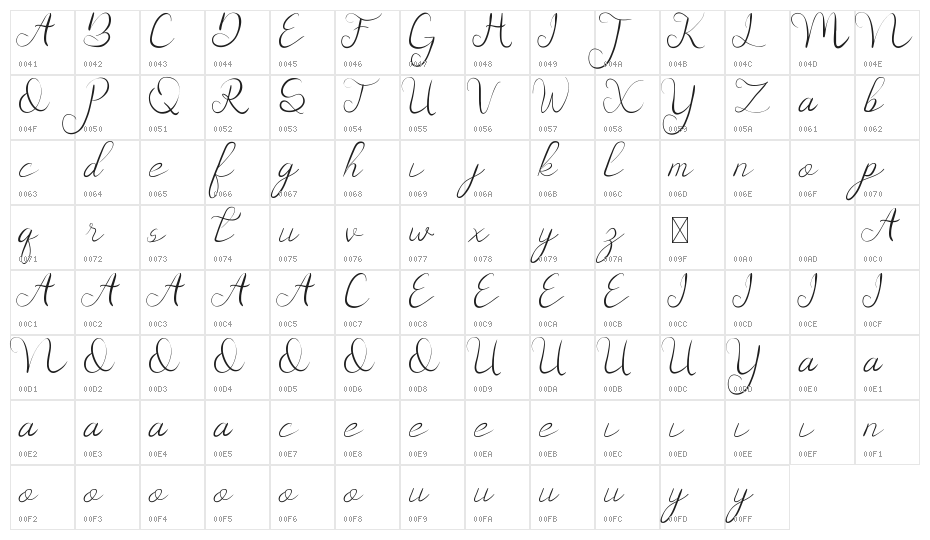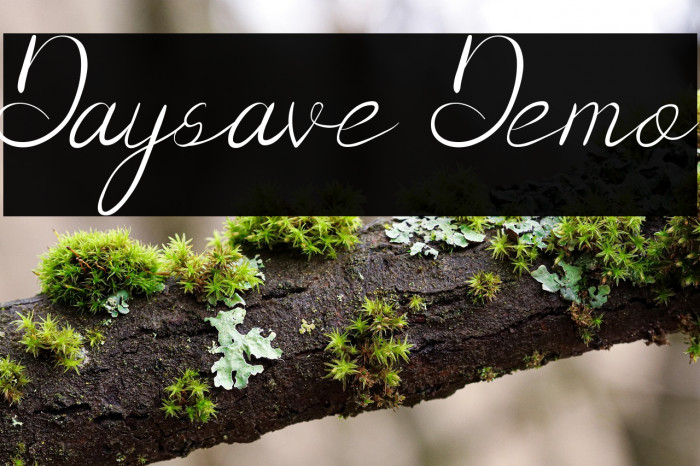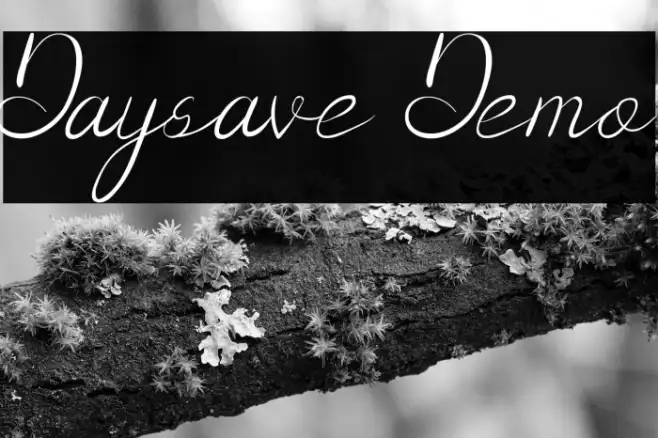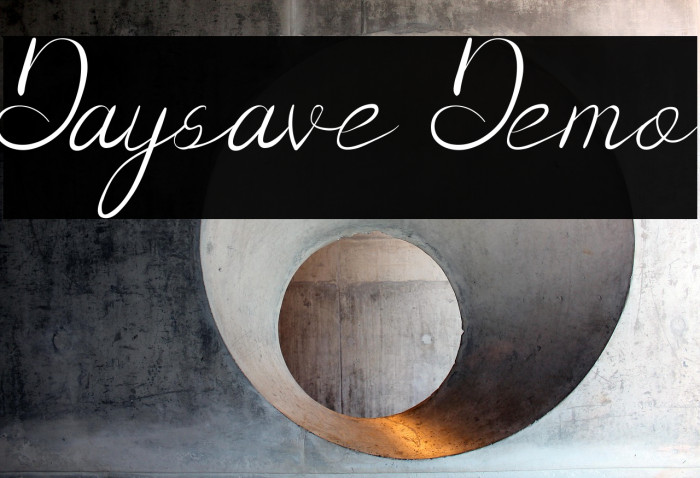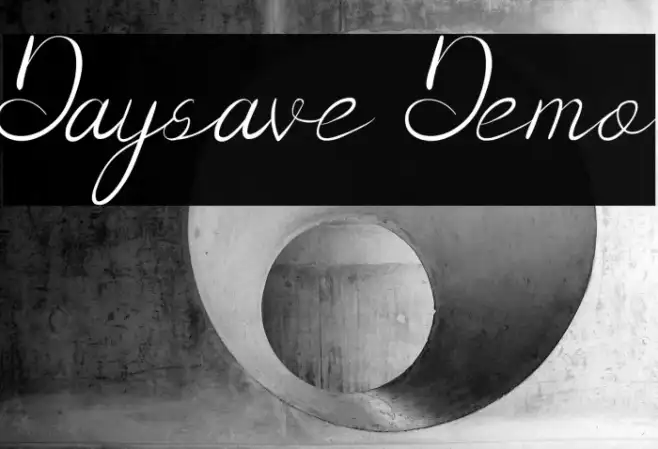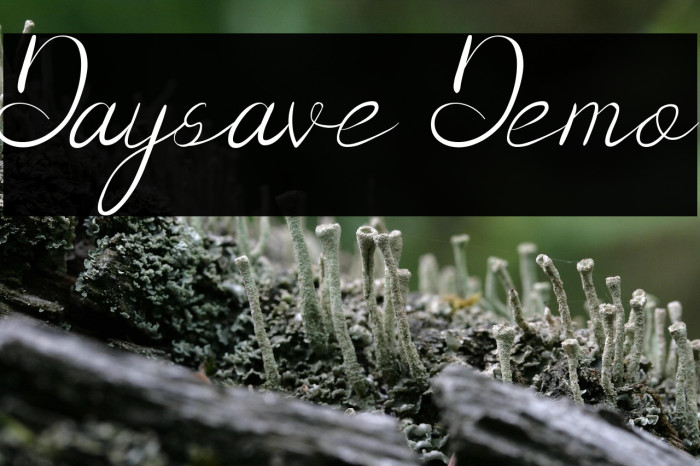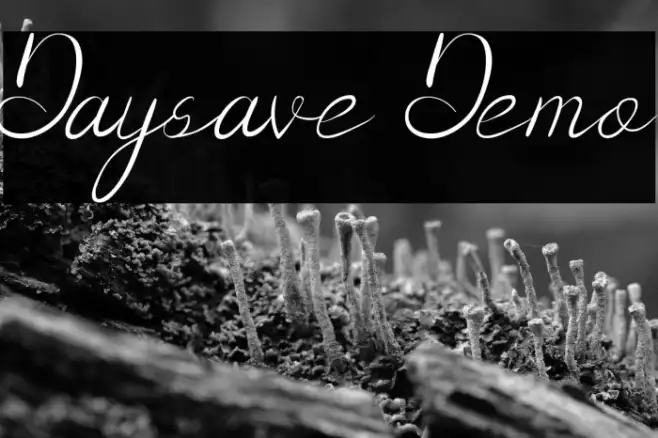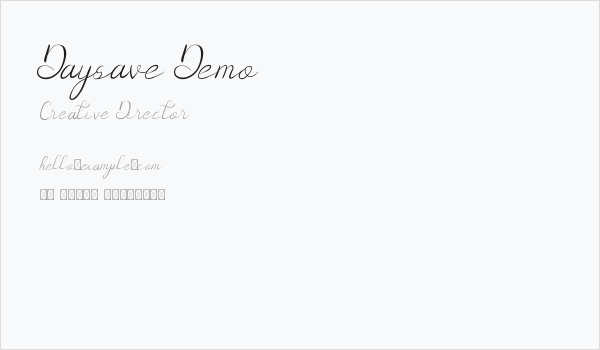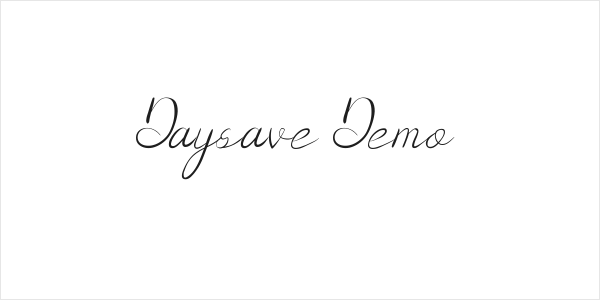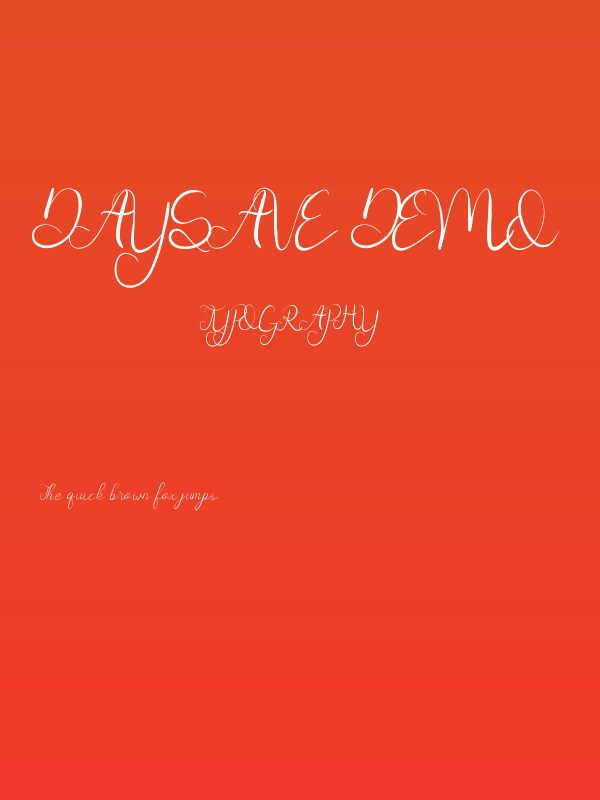
Daysave Demo Font
Daysave Demo Description
This elegant script font features a flowing, cursive style with intricate loops and flourishes. The characters are connected, creating a seamless and sophisticated appearance. The uppercase letters are grand and ornate, while the lowercase letters maintain a graceful continuity. The font exudes a sense of elegance and refinement, making it ideal for formal invitations, branding, and decorative purposes. The strokes vary in thickness, adding a dynamic and artistic flair to the overall design. Its delicate curves and stylish swashes make it stand out as a decorative choice for projects that require a touch of class and sophistication.
| Use Case | Invitations, Branding, Decorative text |
| Proposed Projects | Ideal for wedding invitations, elegant branding, decorative signage, and artistic projects. |